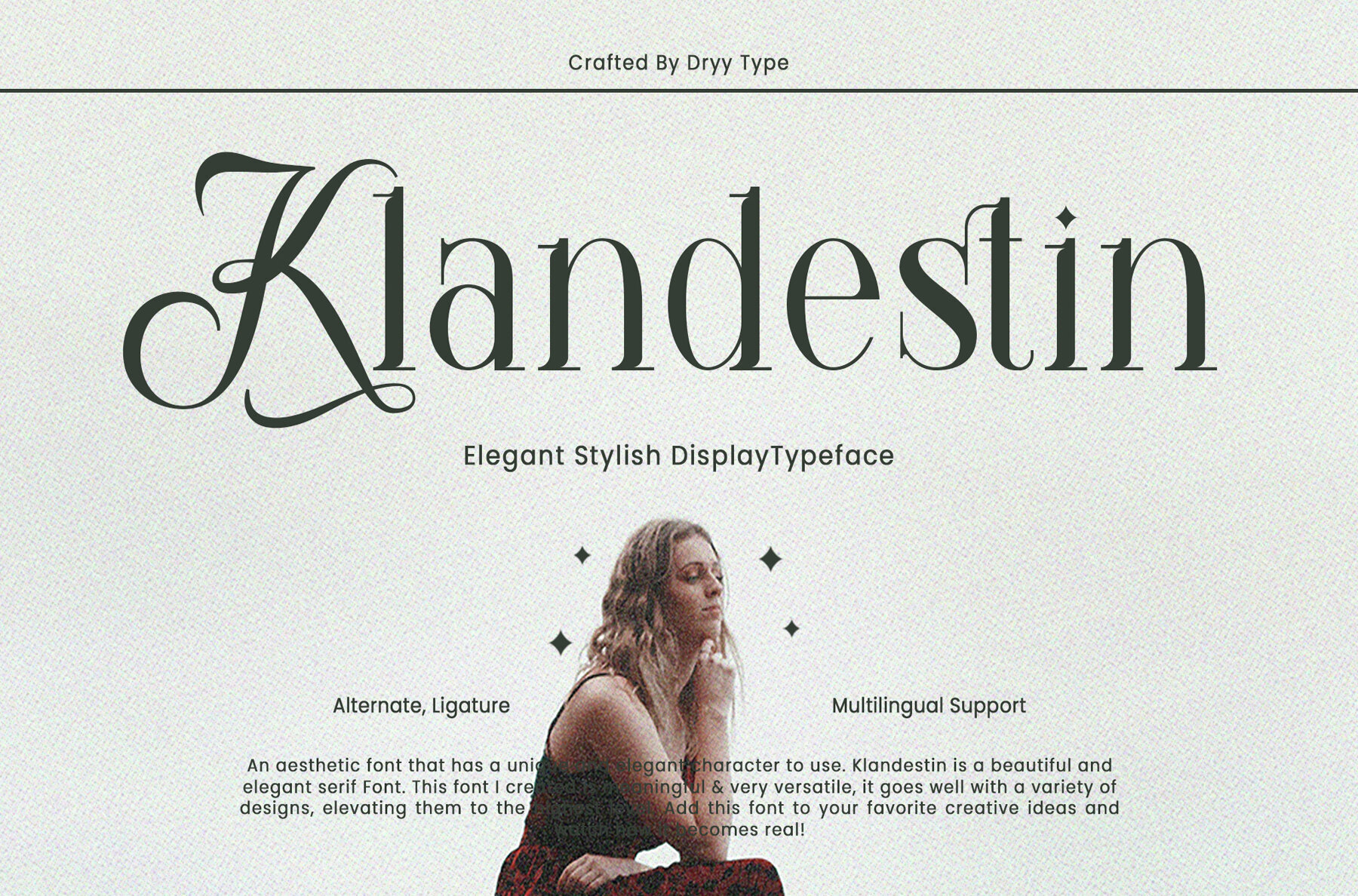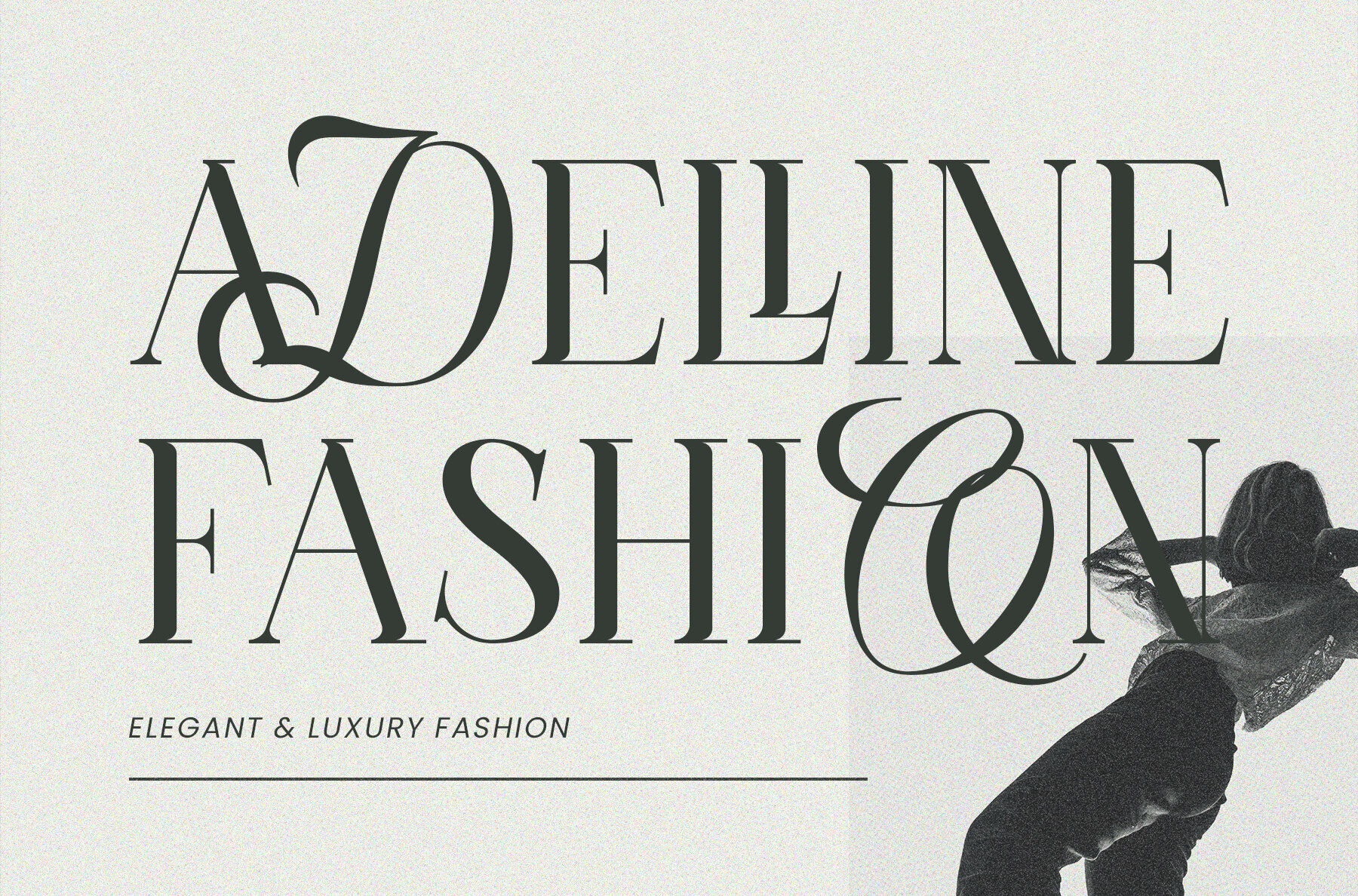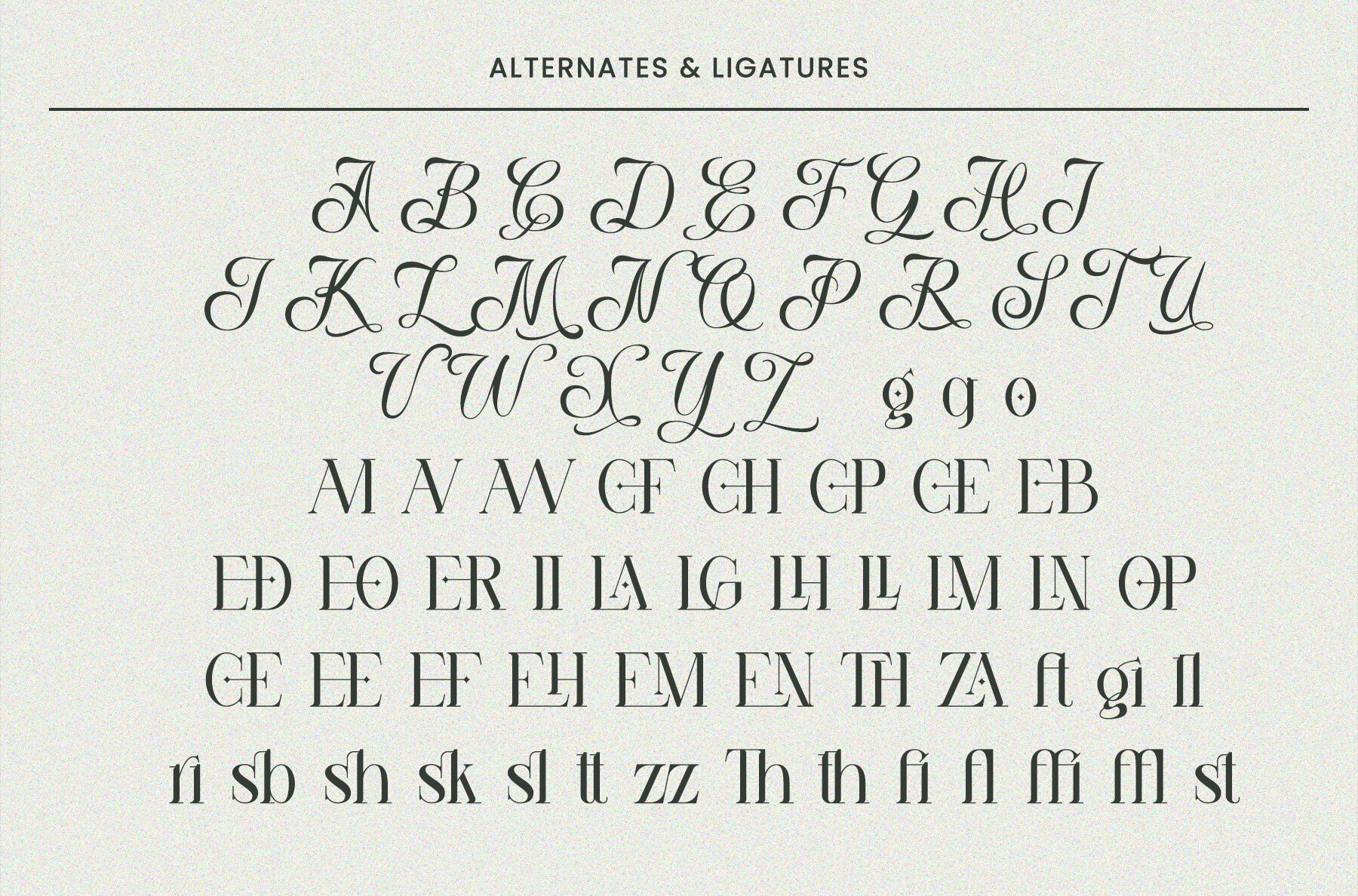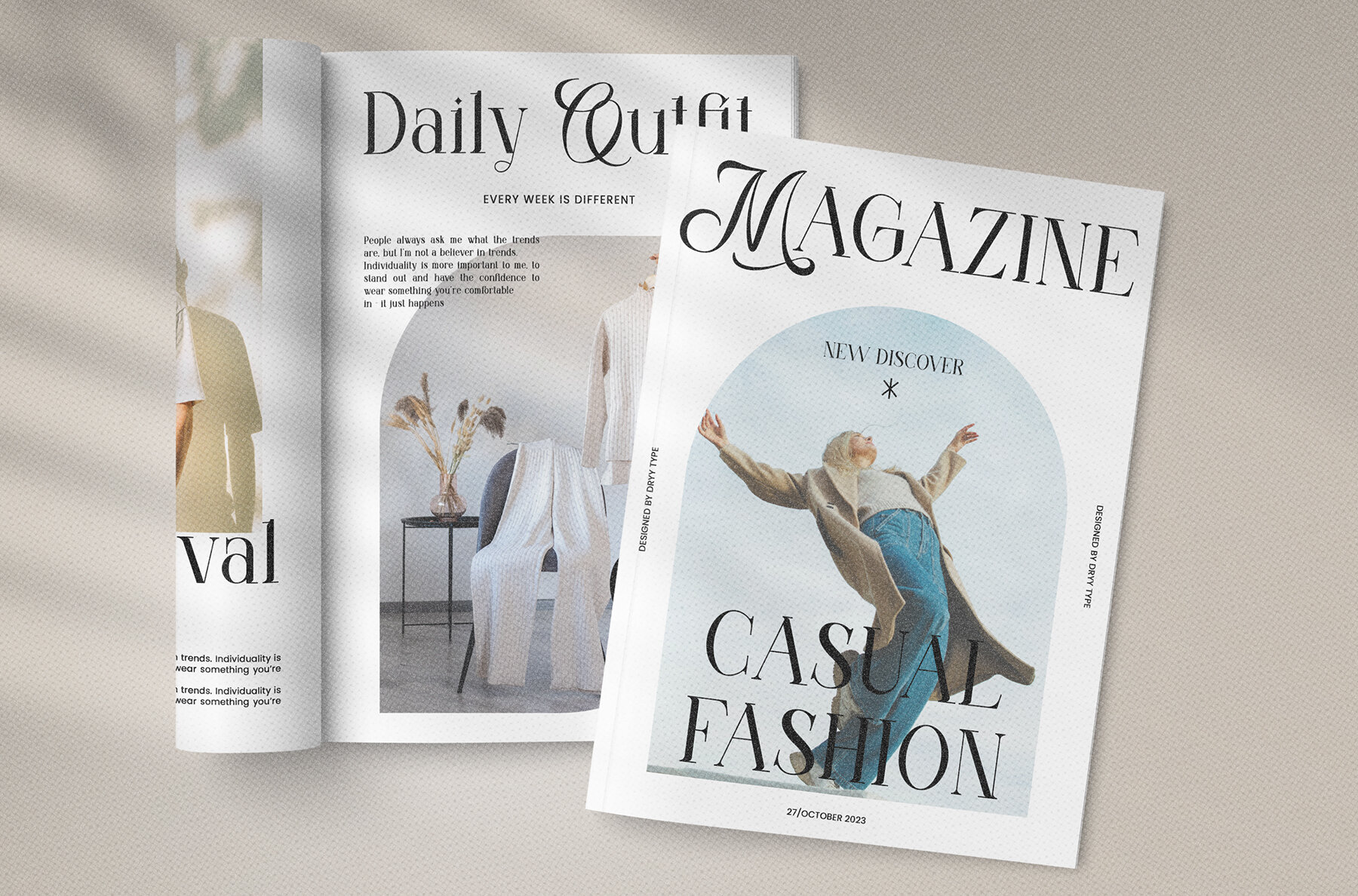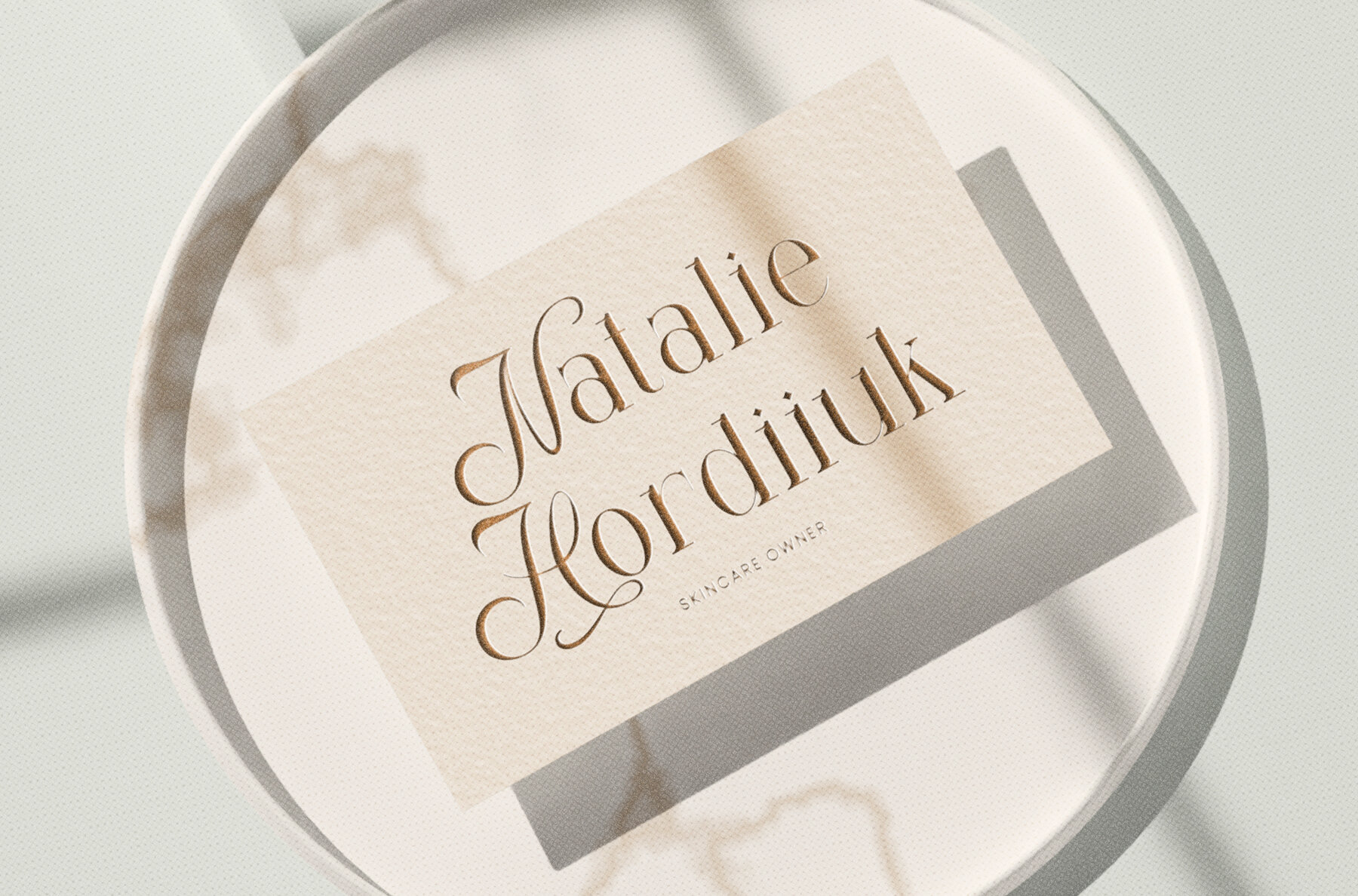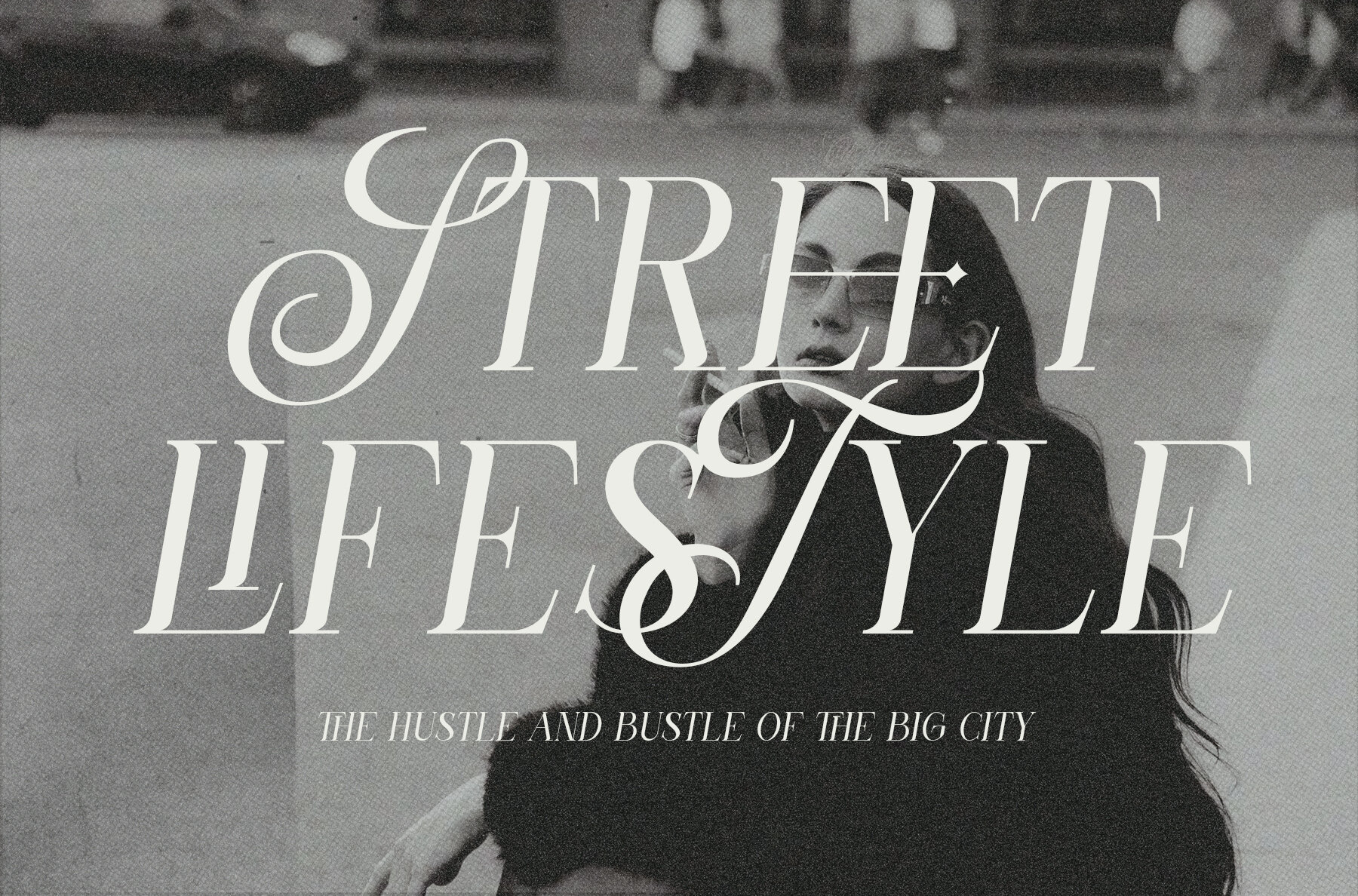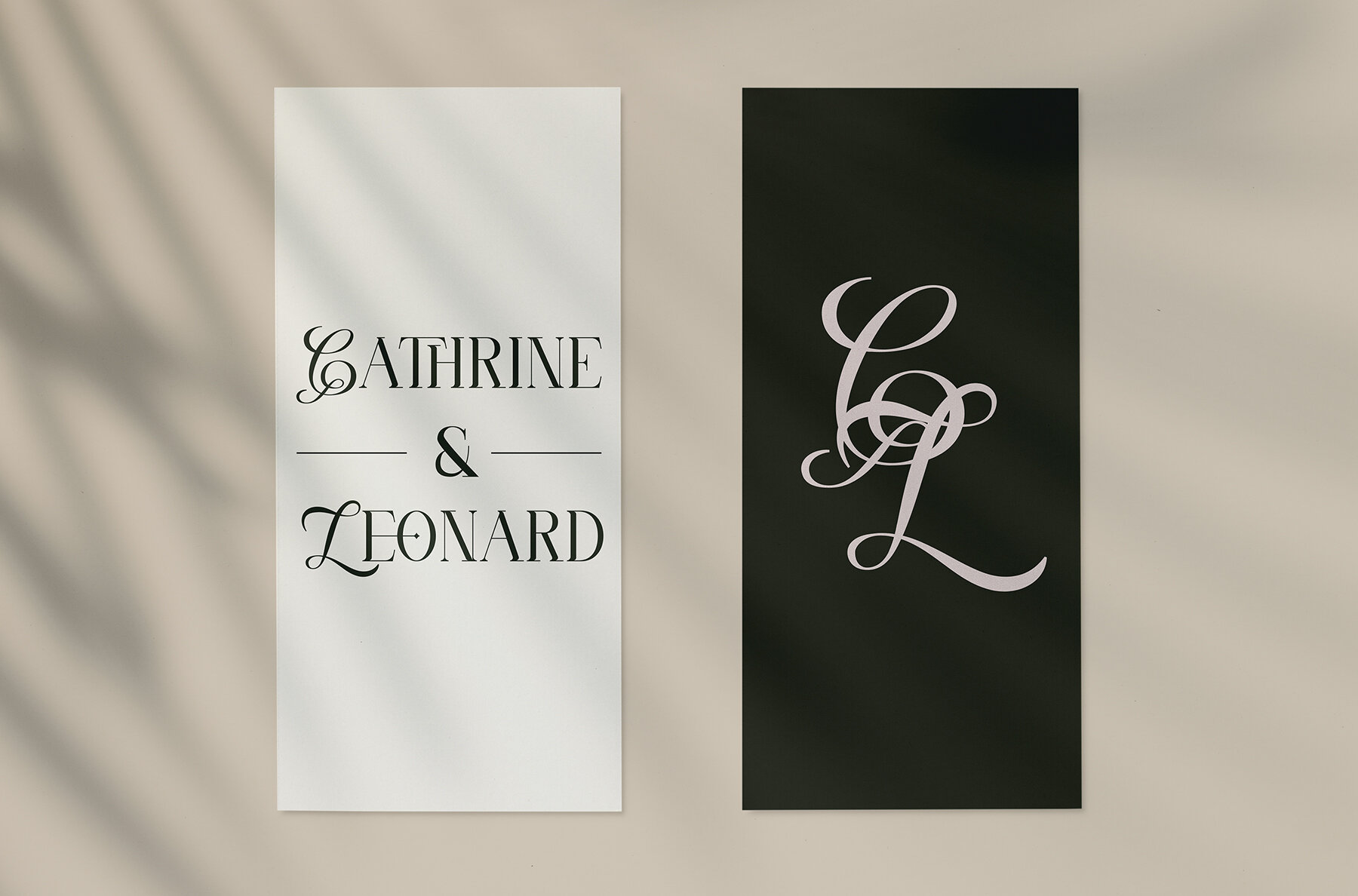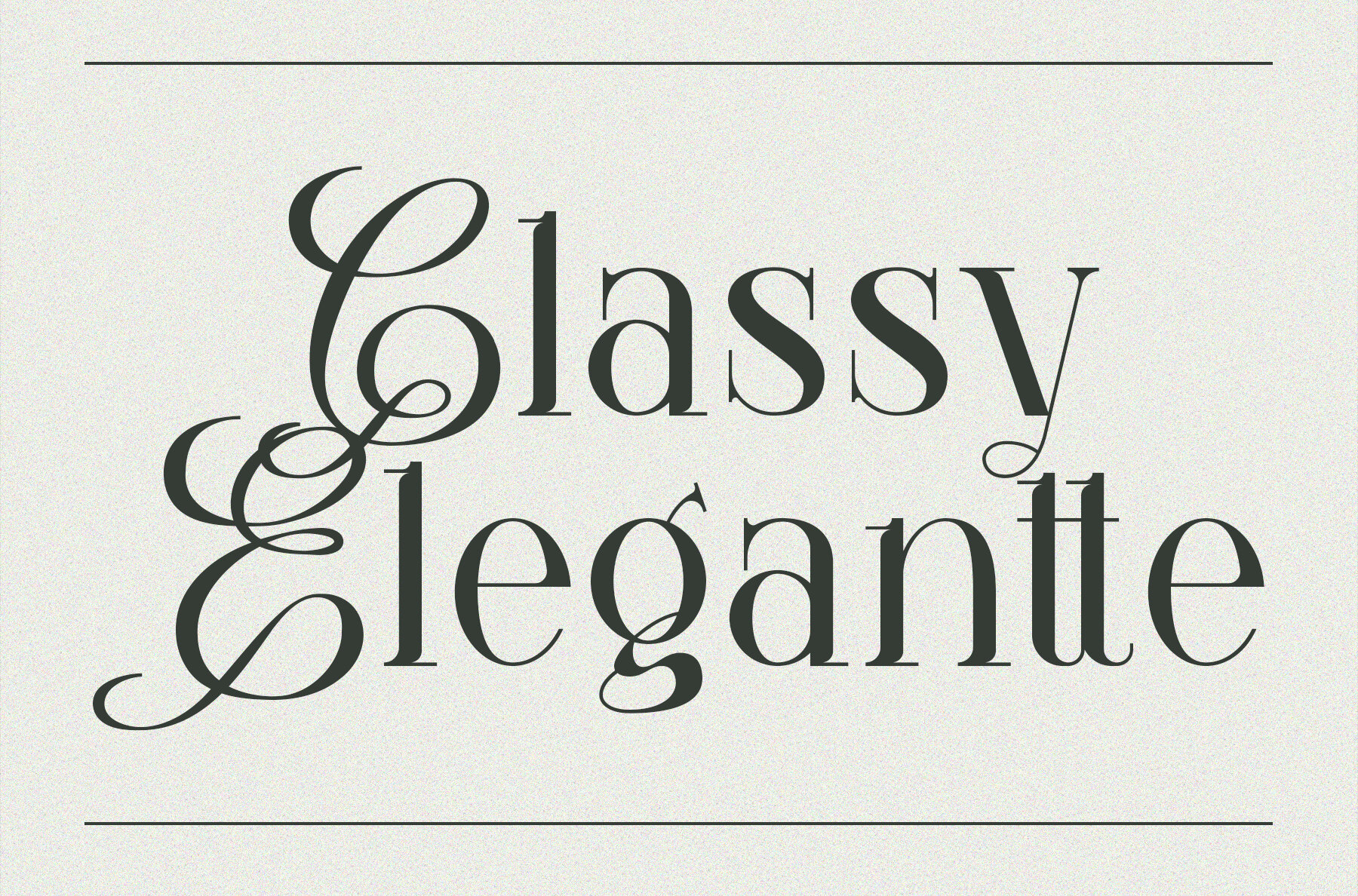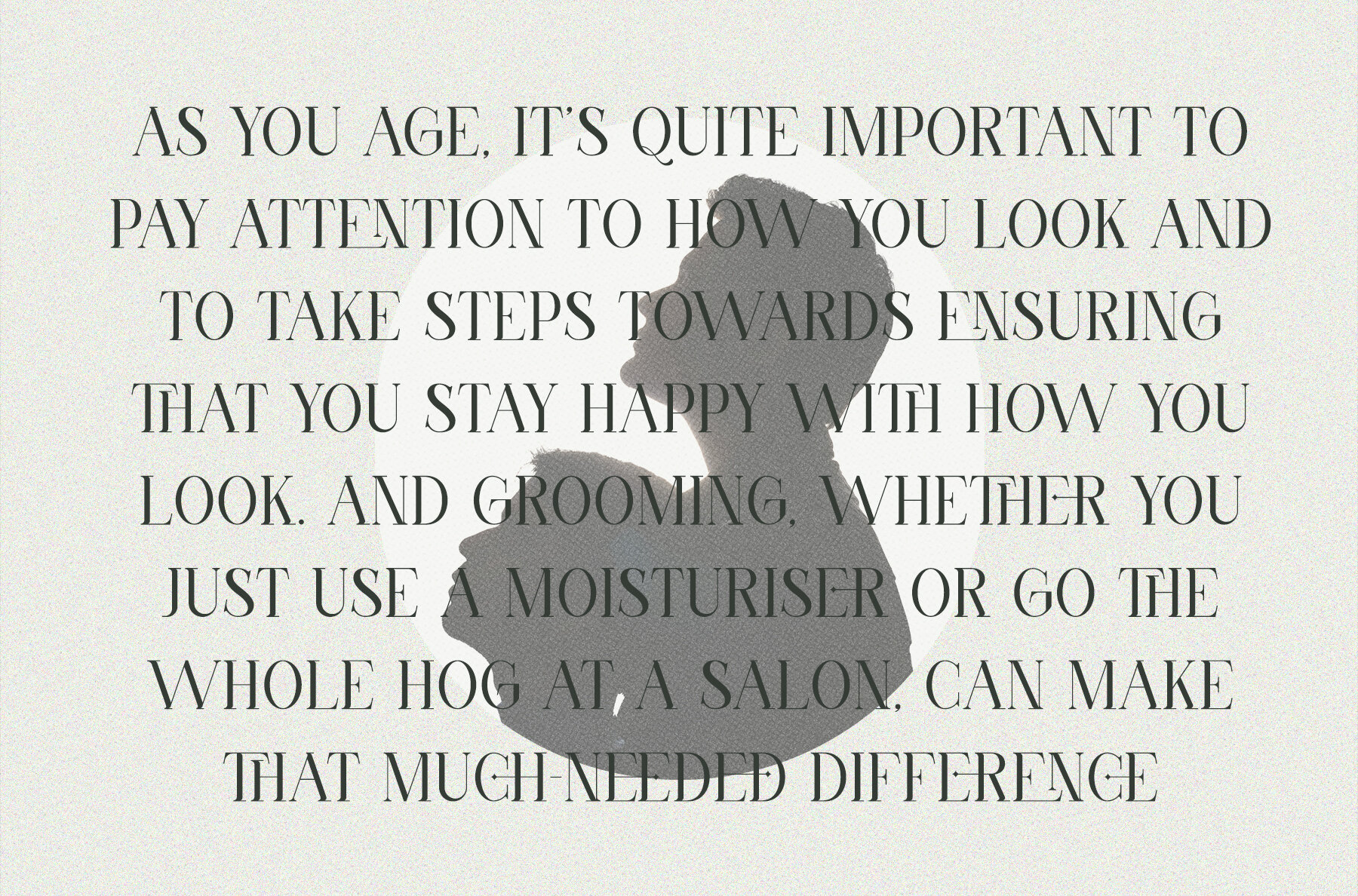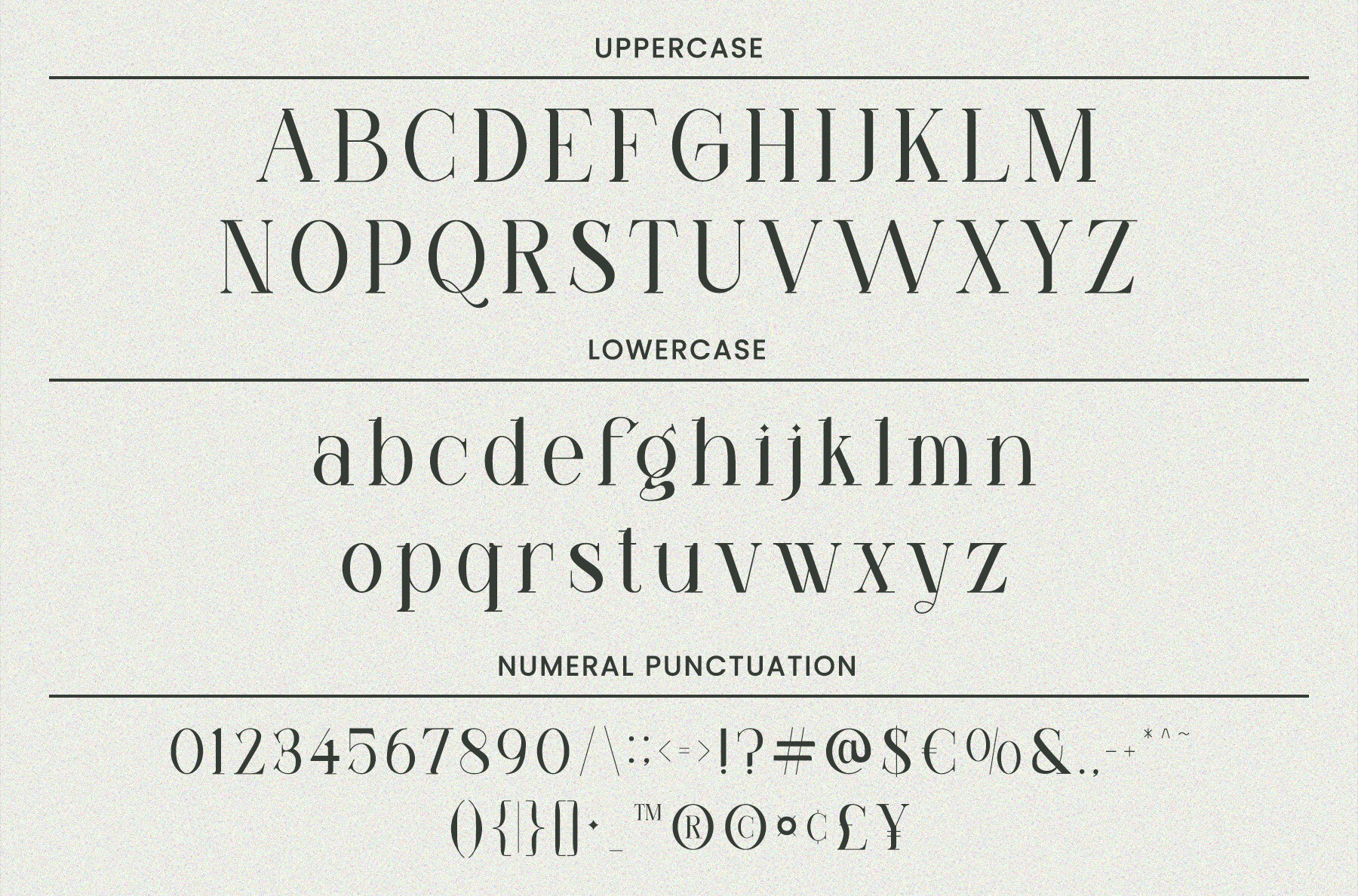
Klandestin Font
Klandestin Regular
Klandestin offers a unique and elegant serif typeface, featuring alternate script options that enhance its versatility. Designed with both aesthetics and functionality in mind, Klandestin includes uppercase and lowercase letters, numbers, alternates, ligatures, and multilingual support. This font seamlessly complements a wide range of design projects, adding a refined touch to each one.
Whether you're working on branding, editorial layouts, or digital interfaces, Klandestin adapts effortlessly, enhancing the sophistication of your creations. Its well-crafted characters ensure readability and style, making it an ideal choice for designers looking to elevate their work.